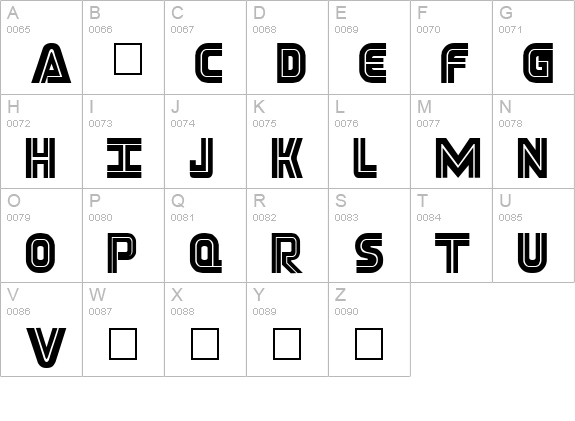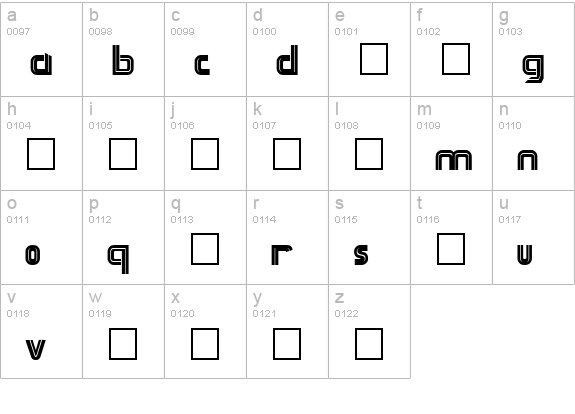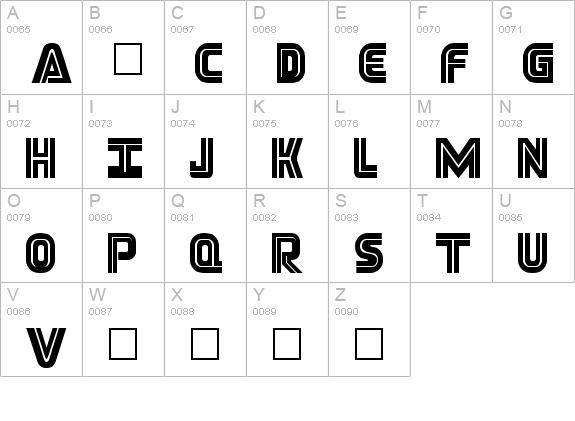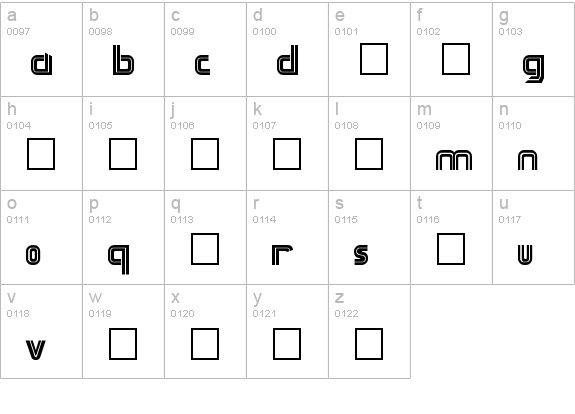
Techtonic Font Details
Introducing Techtonic, a cutting-edge font designed for the modern digital age. With its sleek and futuristic design, Techtonic is perfect for adding a bold and contemporary touch to any project. This versatile font is ideal for a wide range of applications, from website designs to branding materials and everything in between. Techtonic stands out with its unique and eye-catching letterforms, effortlessly blending clean lines with a touch of technological sophistication. Its carefully crafted curves and sharp angles create a harmonious balance, capturing the essence of innovation and progress. One of the best aspects of Techtonic is that it is freely available to download at FontsMarket.com. This means that you can add this remarkable font to your collection without any cost. Whether you're a professional designer or a hobbyist looking to enhance your creative projects, Techtonic provides a valuable resource that won't break the bank. With its extensive character set, Techtonic offers a wide range of options for customization. From thin and elegant to bold and commanding, this font allows you to create a truly personalized and impactful visual experience. Its versatility ensures that Techtonic can adapt seamlessly to various design styles and themes, making it a go-to choice for designers seeking a font that can deliver on both form and function. Techtonic's clean and legible design also makes it highly readable across different platforms and devices, ensuring that your message will be effectively communicated to your audience, no matter the medium. Whether it's on a website, mobile app, or print material, Techtonic's clarity and precision will captivate and engage viewers, leaving a lasting impression. So why wait? Download Techtonic today and unleash your creativity with this remarkable font. With its modern aesthetic, extensive customization options, and the added bonus of being freely available at FontsMarket.com, Techtonic is the perfect choice for designers who want to stay ahead of the curve. Embrace the future of typography and let Techtonic elevate your designs to new heights.